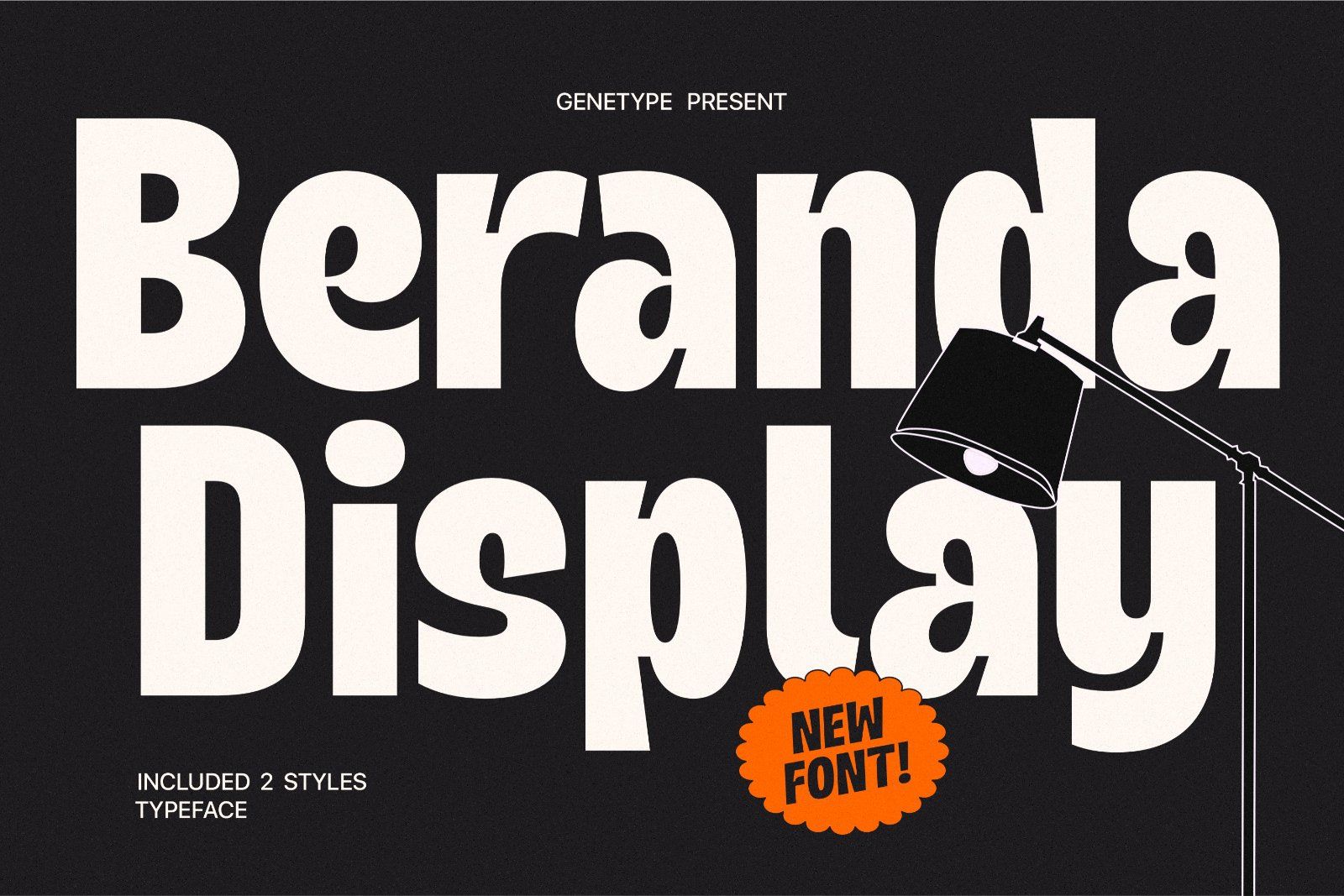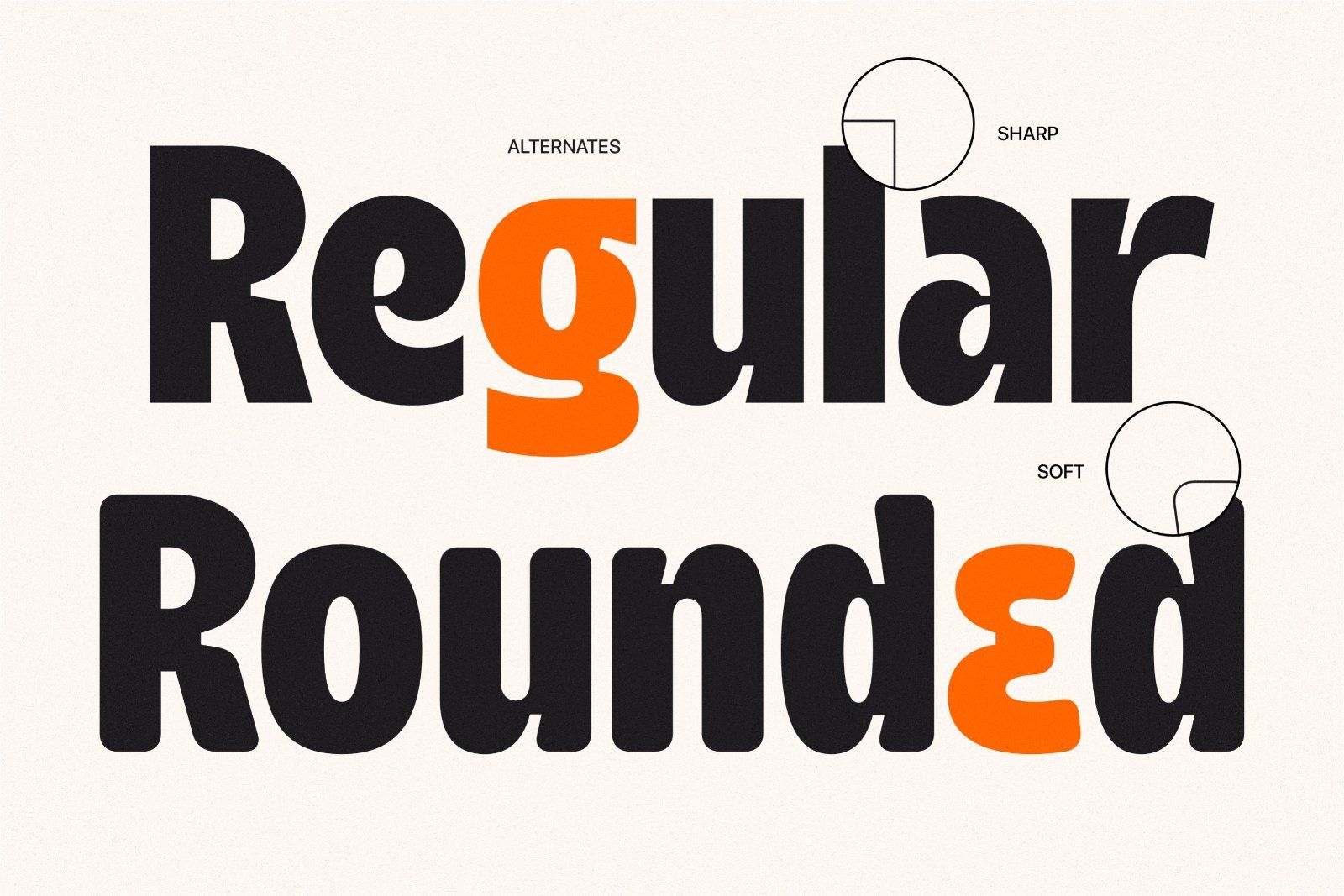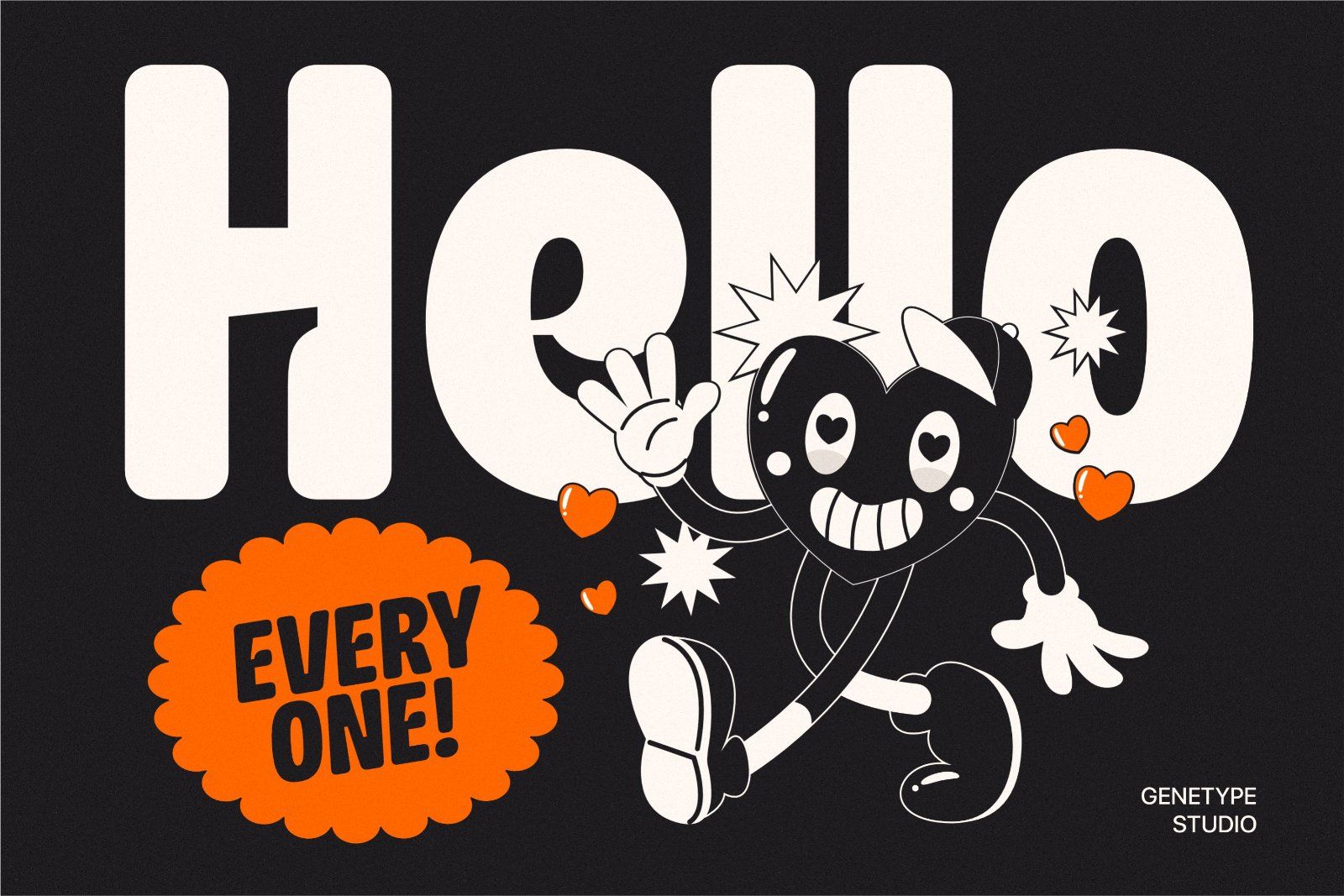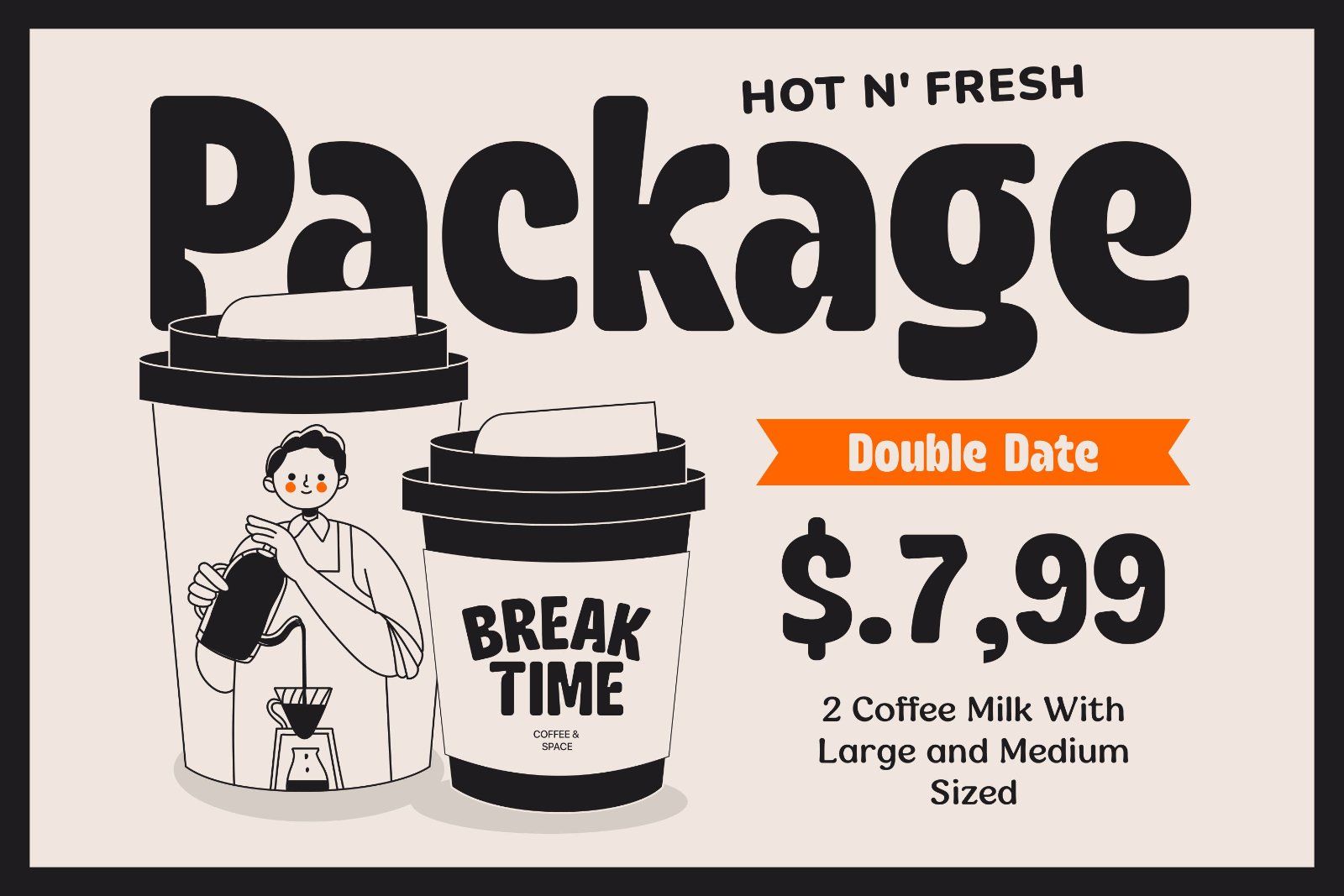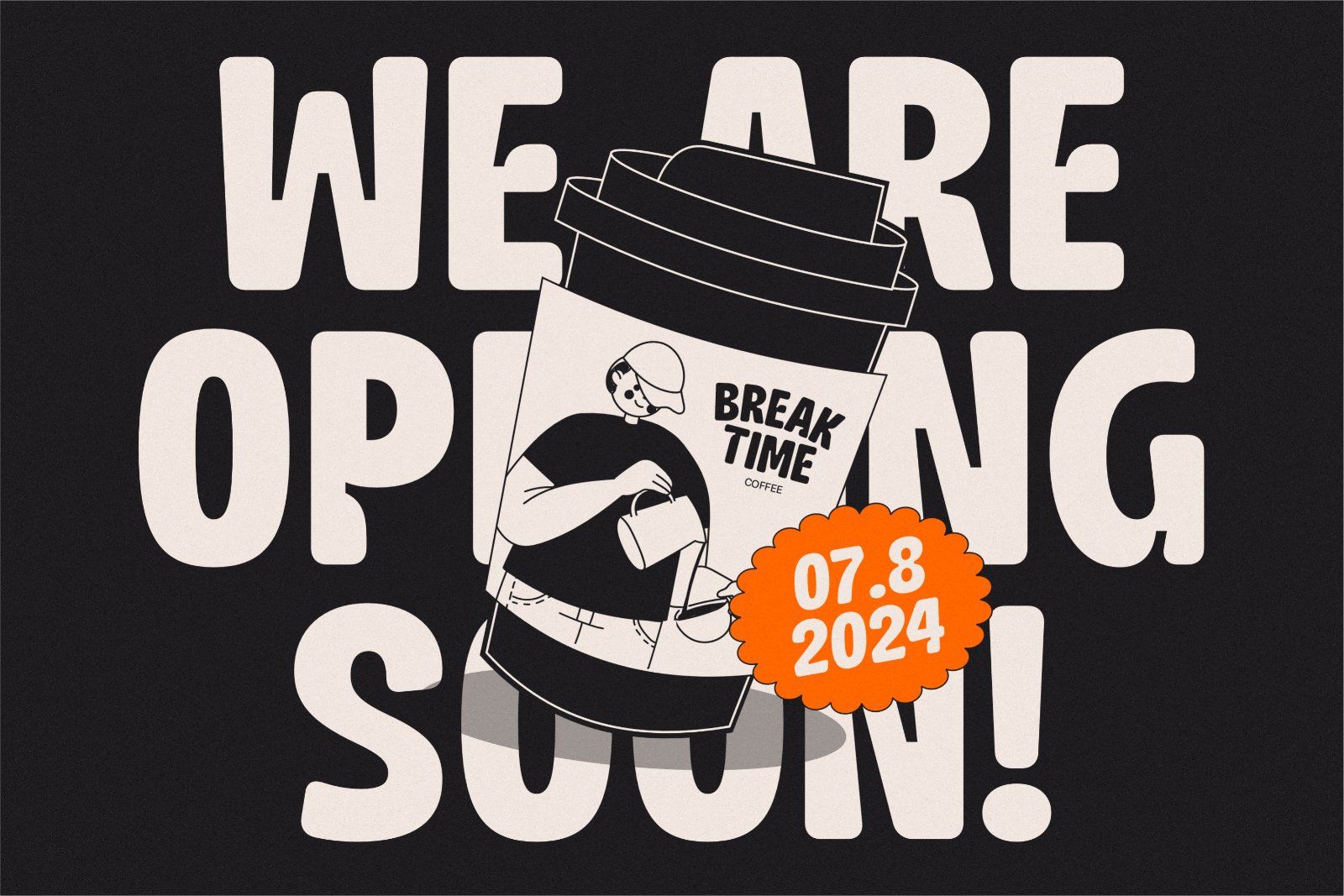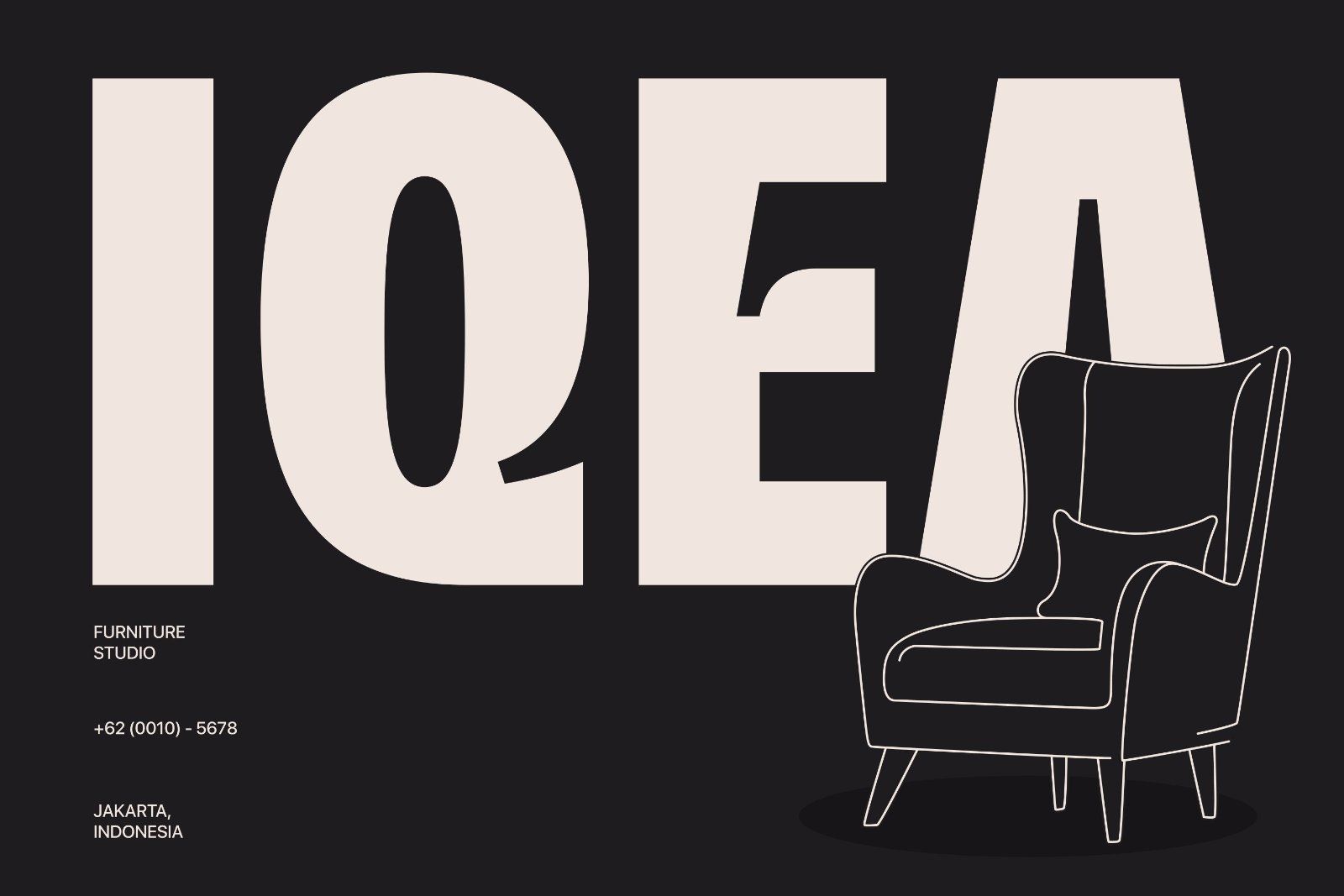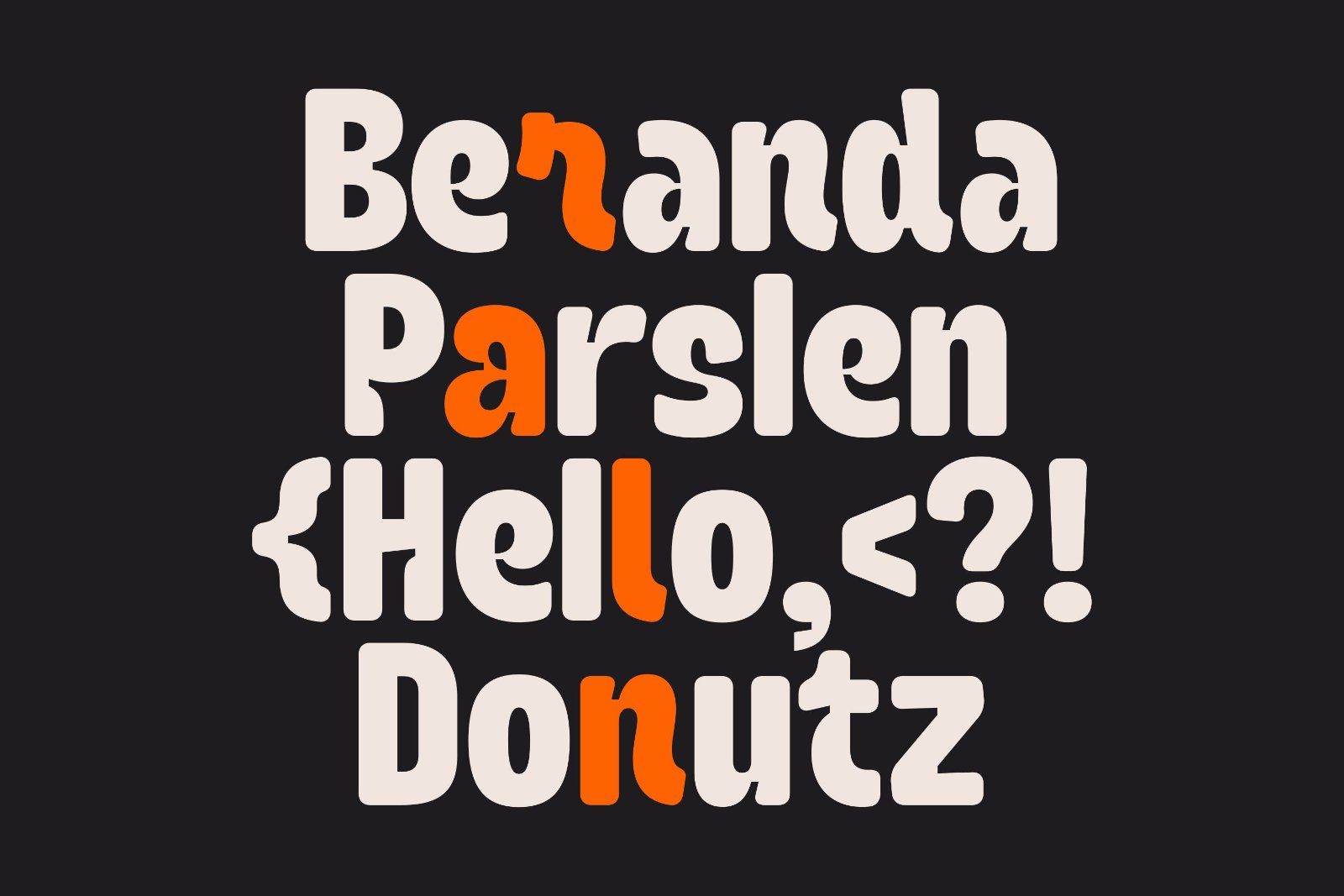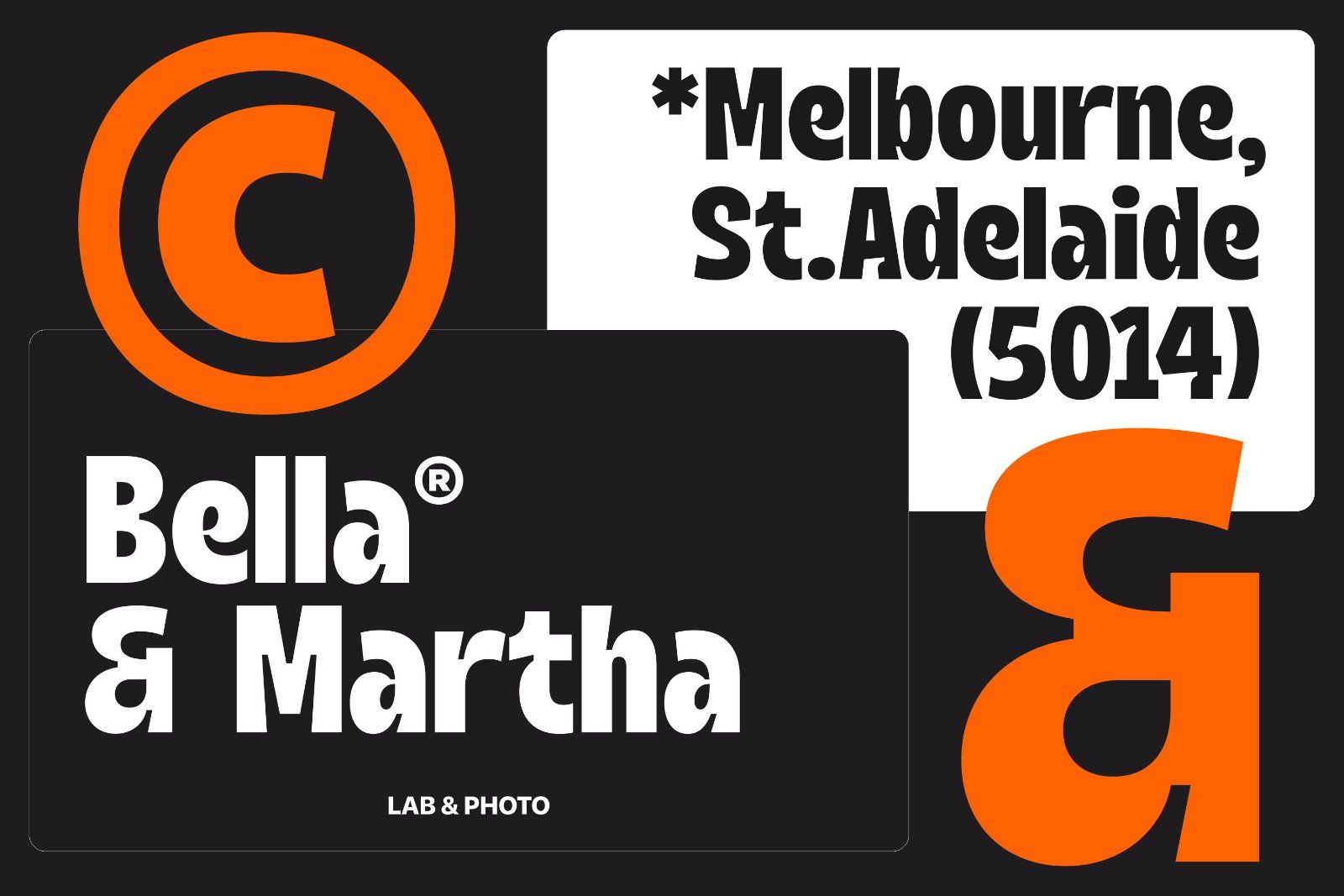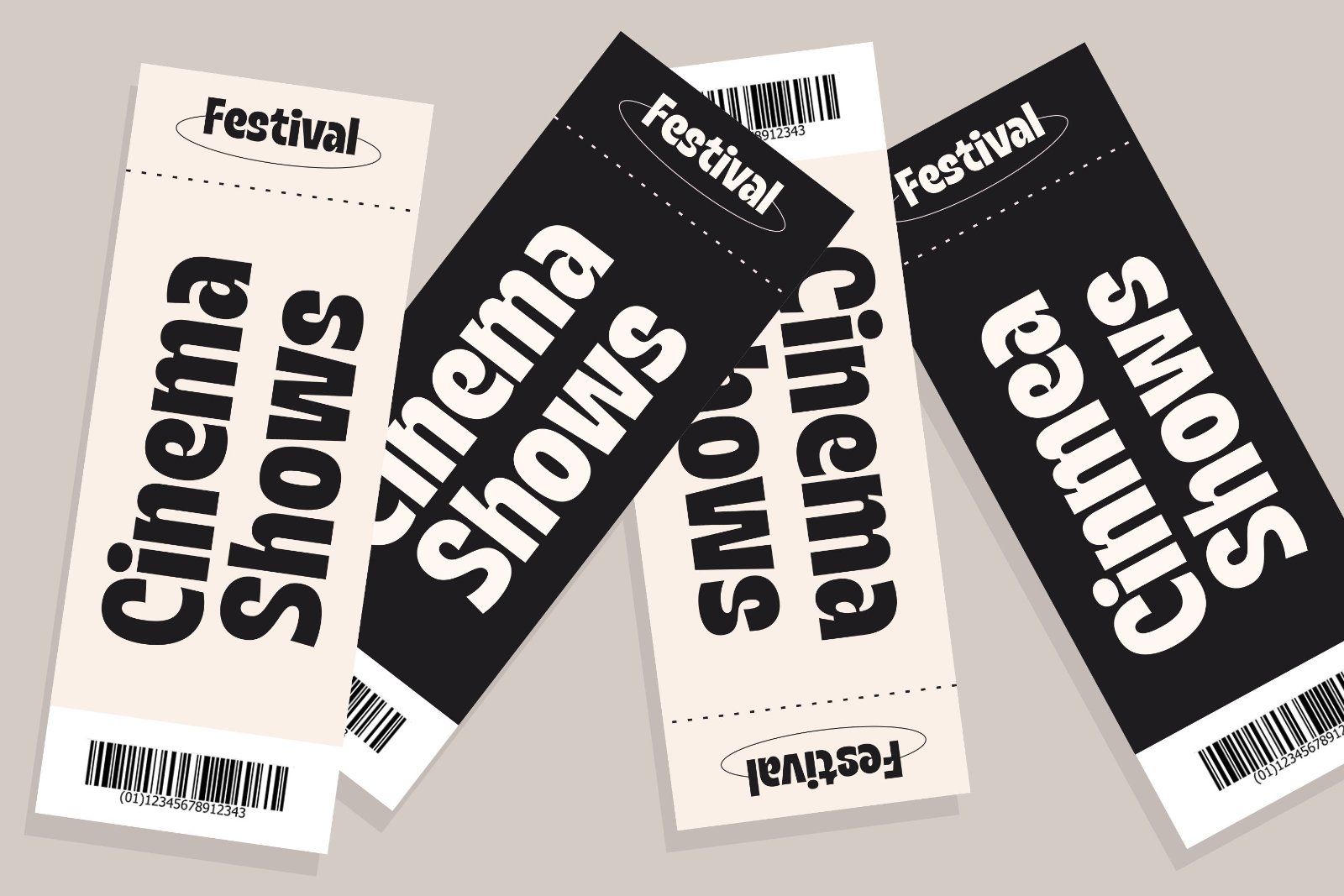
Introducing Beranda, a sleek and condensed sans serif typeface featuring prominent inktraps for a distinctive visual impact. Designed with a focus on efficiency and readability, Beranda is ideal for projects that require space-saving typography without sacrificing style. Its sharp edges and generous inktraps not only enhance legibility at small sizes but also add a unique character to headlines and branding materials. Whether you're designing for digital interfaces, editorial layouts, or signage. Embrace the bold presence and contemporary flair of Beranda to make your text stand out with clarity and sophistication.
Beranda font has has all alternates in lowercase letters
Beranda 2 versions. regular and semi round